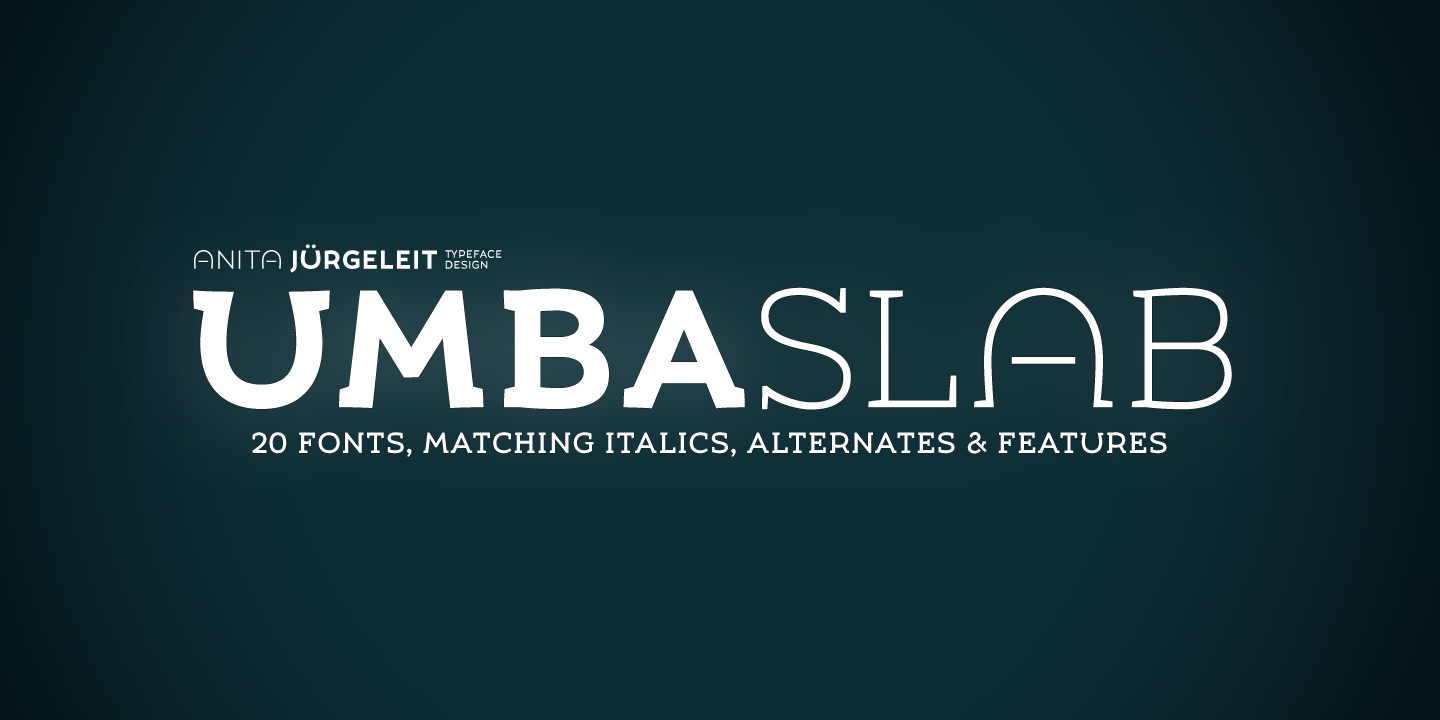
Umba Slab Font
Umba Slab Font is perfectly suited for strong editorial headlines, robust construction company branding, industrial design projects, masculine lifestyle brands, architectural firm identities, heavy machinery marketing, outdoor equipment packaging, bold advertising campaigns, and authoritative publication layouts.
What makes Umba Slab Font so exciting is its commanding presence and solid reliability that instantly conveys strength, durability, and unwavering confidence in every boldly constructed letterform. This powerful typeface combines the traditional authority of slab serif design with contemporary functionality, creating typography that feels both timeless and modern. The font's substantial character shapes and robust proportions evoke images of solid foundations and dependable craftsmanship while maintaining excellent readability across all applications. Umba Slab Font stands out through its ability to convey strength, reliability, and professional authority, making it perfect for projects that need to establish trust and credibility while communicating with audiences who value substance, durability, and proven performance in their business and personal choices.
The Umba Slab Font family includes Light, Regular, Medium, Bold, and Black weights, each maintaining the font's distinctive solid character while providing design flexibility for various authoritative applications. The family also features condensed variations and structural alternates that enhance the font's industrial appeal and provide comprehensive solutions for robust design projects requiring strong typographic presence.
When you choose Umba Slab Font Free Download, you're selecting a typeface that brings authentic strength and professional authority to your creative projects. This font excels in creating designs that need to convey reliability, durability, and unwavering confidence. Its solid slab appearance makes it particularly effective for construction companies, industrial brands, and professional projects that want to establish credibility while communicating strength and dependable performance.
The technical excellence of Umba Slab Font includes a comprehensive character set with uppercase and lowercase letters, numerals, punctuation marks, and industrial symbols that maintain the font's solid character. The font has been meticulously engineered to ensure optimal performance and visual impact across both digital and print applications while preserving the substantial details that give it its distinctive authoritative character and professional appeal.
Whether you're designing industrial branding, creating construction company materials, developing professional publications, or crafting designs that need to convey solid reliability and authoritative strength, Umba Slab Font delivers the perfect combination of structural integrity and contemporary functionality that makes your projects trustworthy and commanding for audiences seeking dependable solutions and proven professional expertise.